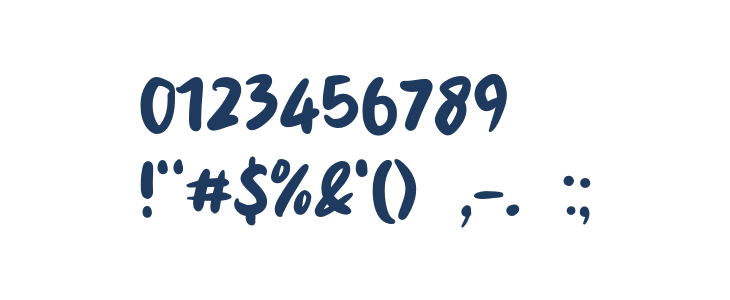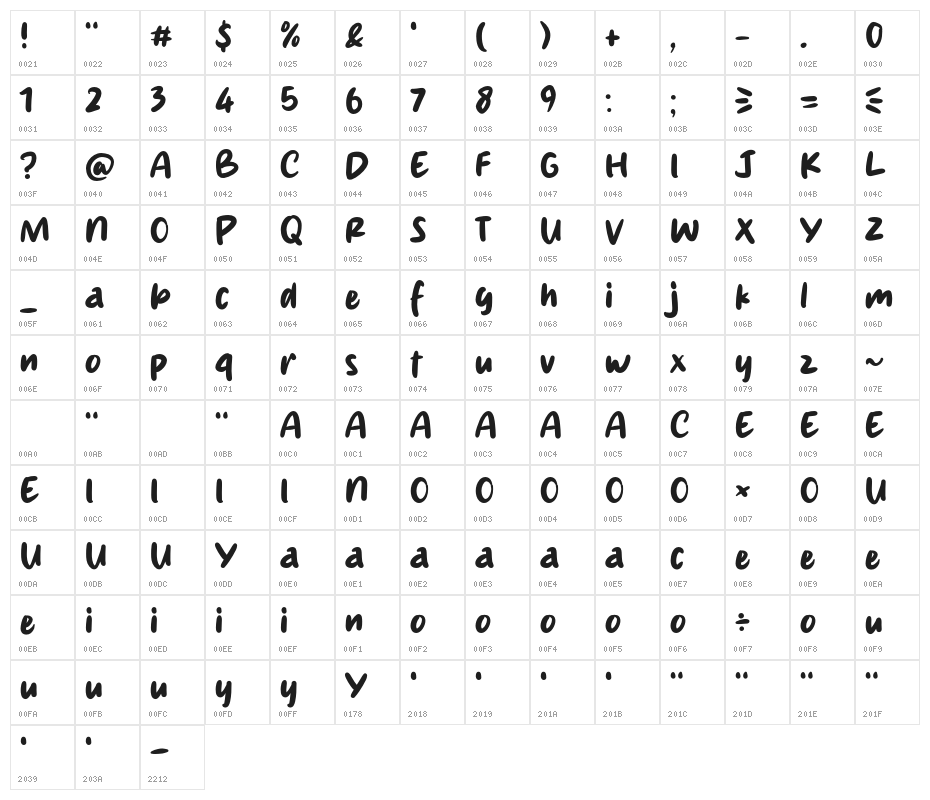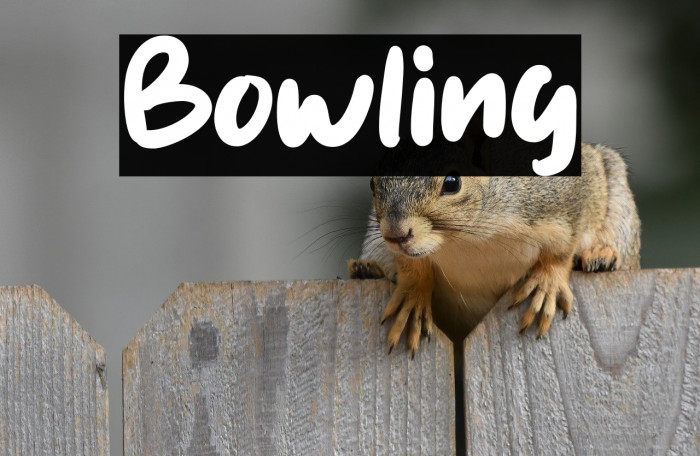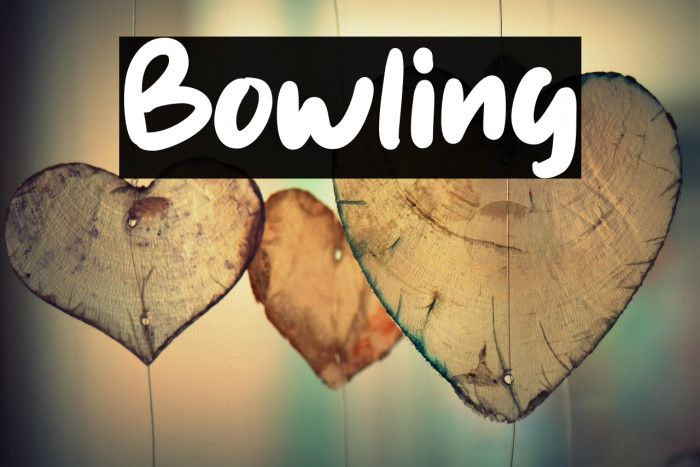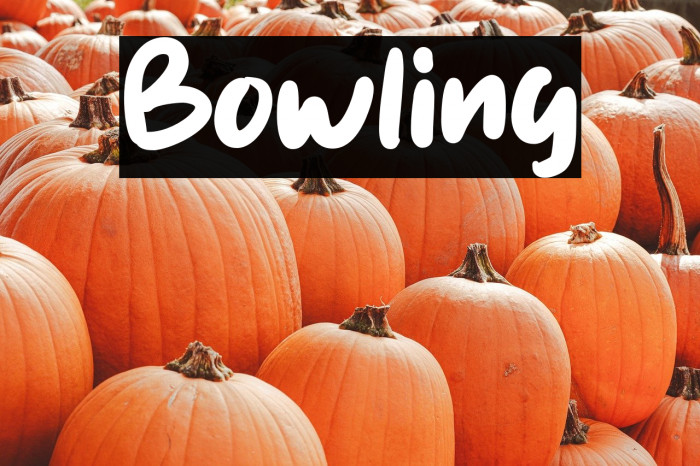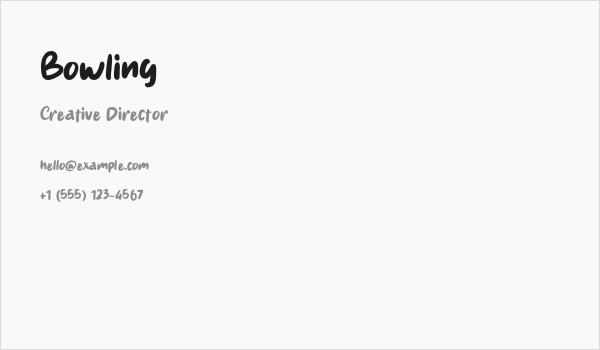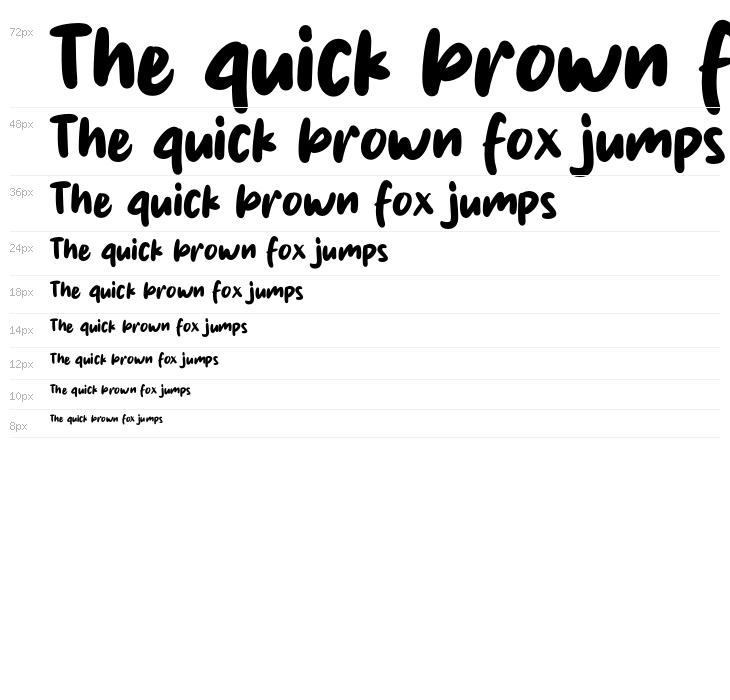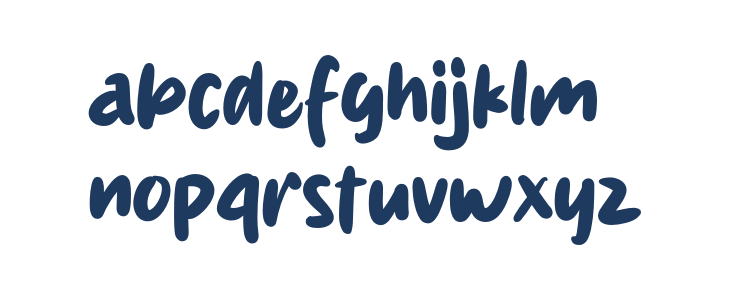
Bowling Font
Bowling Description
This font features a bold and playful handwritten style, characterized by its thick, rounded strokes and casual appearance. The letters are slightly slanted, giving it a dynamic and energetic feel. The uppercase and lowercase letters maintain a consistent style, with a smooth flow between characters. Numbers and special characters are equally bold and maintain the playful aesthetic. The overall look is informal and friendly, making it suitable for creative and fun projects.
Overall StylePlayful
Use CaseLogos, Headlines, Creative projects
Proposed ProjectsIdeal for children's books, playful branding, greeting cards, and creative posters.